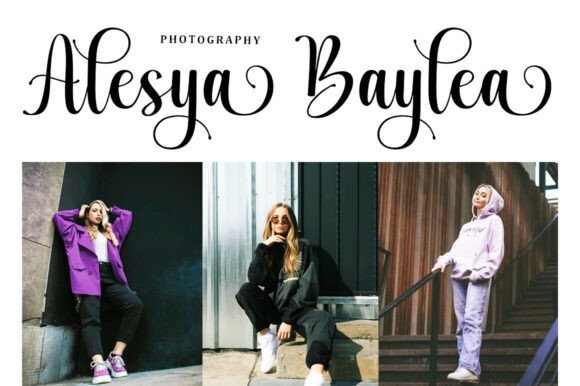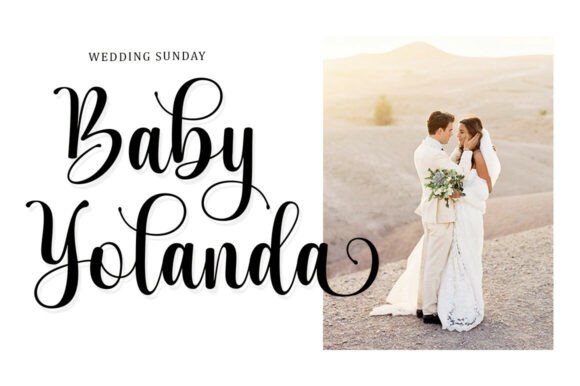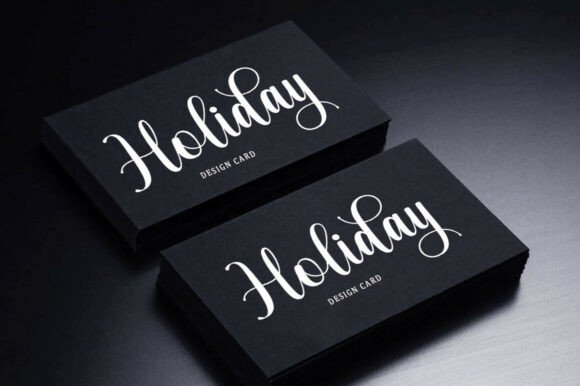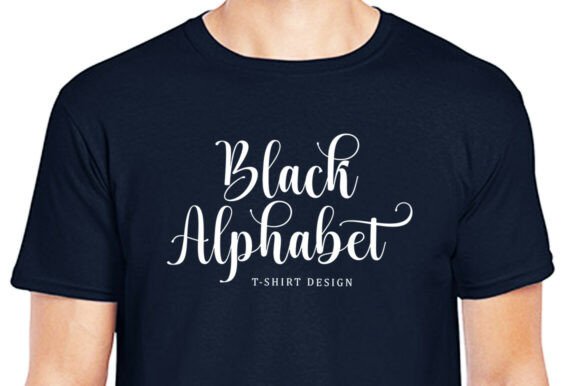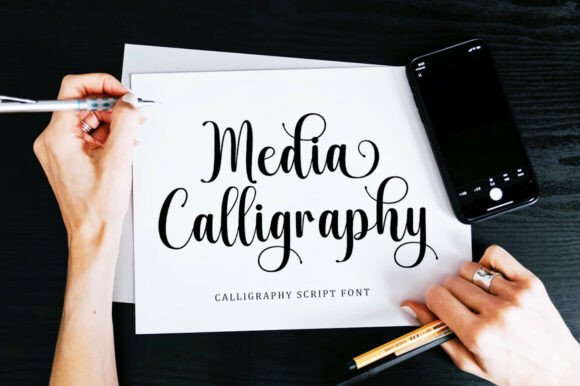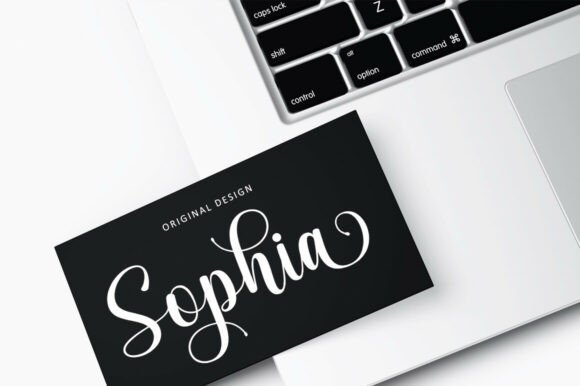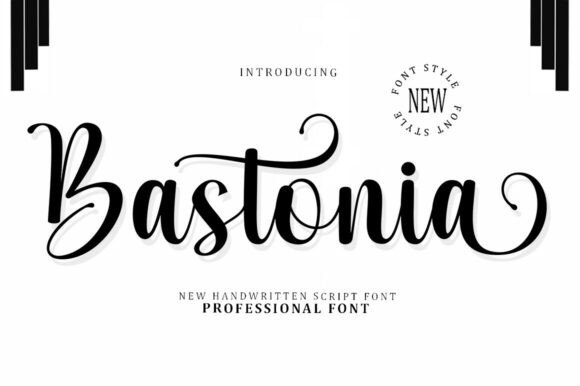
Bastonia Font: Elevate Your Designs with Elegance and Sophistication
Are you looking for a font that exudes luxury, sophistication, and glamour? Look no further than Bastonia Font, a stunning script font designed to take your creative ideas to the next level. With its sleek, clean, and feminine design, Bastonia is perfect for a wide range of applications, from formal invitations to fashion branding.
What Makes Bastonia Font So Special?
Bastonia Font is a beautifully crafted script font that boasts an impressive range of features. Here are just a few reasons why it’s a must-have for designers and crafters:
- PUA-encoded: Bastonia Font is PUA-encoded, making it easy to access all the glyphs and strokes. This means you can effortlessly create stunning text designs without any hassle.
- Luxurious Letter Connections: The font features many luxurious letter connections, giving it a smooth, flowing look that’s perfect for creating elegant text designs.
- Stylish Alternatives: In addition to the classic style, Bastonia Font also offers a range of stylish alternatives for all letters. This allows you to experiment with different looks and find the perfect fit for your design.
- Multilingual Support: The font includes multilingual support, making it suitable for use in a variety of languages and applications.
The Perfect Font for Formal Applications
Bastonia Font’s classic style makes it perfect for a range of formal applications, including:
- Invitations: Whether you’re planning a wedding, birthday party, or corporate event, Bastonia Font is the perfect choice for creating elegant invitations.
- Labels: Add a touch of sophistication to your product labels or packaging with Bastonia Font.
- Restaurant Menus: Elevate your restaurant’s branding with Bastonia Font, perfect for creating stylish menus and promotional materials.
- Logos: Use Bastonia Font to create a luxurious logo for your fashion, makeup, or beauty brand.
- Stationery: Create elegant stationery, including letterheads, business cards, and notebooks, with Bastonia Font.
A Comprehensive Font Package
When you purchase Bastonia Font, you’ll receive a comprehensive font package that includes:
- Capital Letters: A full set of capital letters, perfect for creating bold and eye-catching text designs.
- Lowercase Letters: A full set of lowercase letters, ideal for creating elegant and sophisticated text designs.
- Alternative Letters: A range of stylish alternative letters, allowing you to experiment with different looks and find the perfect fit for your design.
- Punctuation: A full set of punctuation marks, ensuring you have everything you need to create polished text designs.
- Numbers: A full set of numbers, perfect for creating invoices, receipts, and other numerical text designs.
In conclusion, Bastonia Font is a stunning script font that’s perfect for designers and crafters looking to add a touch of elegance and sophistication to their work. With its luxurious letter connections, stylish alternatives, and comprehensive font package, Bastonia Font is a must-have for anyone looking to elevate their designs.